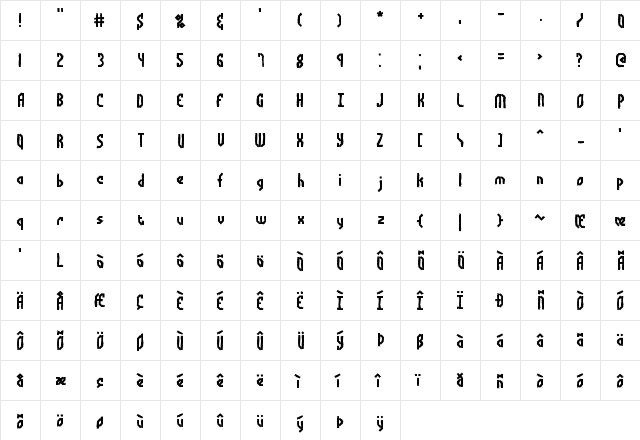
Bocuma Angle Dent BRK Normal
| Foundry | ƎIGMA FONTS |
| Designer | ƎIGMA FONTS - Brian Kent |
Design Context for Bocuma Angle Dent BRK Typeface
Bocuma Angle Dent BRK is a composed and adaptable typeface that performs quietly and consistently across a wide range of design contexts.